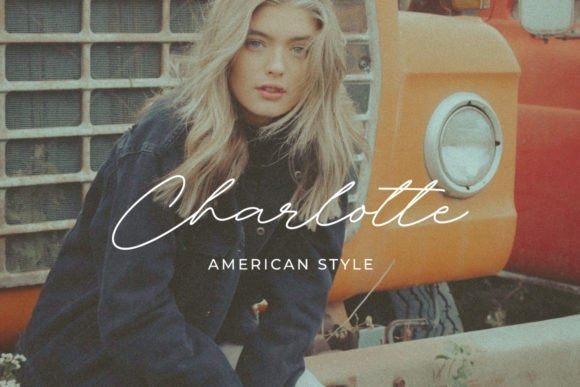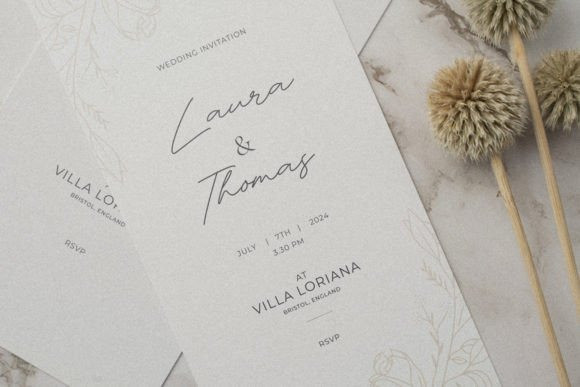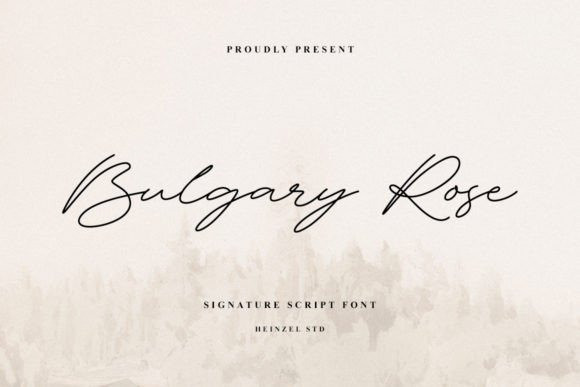
Bulgary Rose Handwriting Font
Bulgary Rose Handwriting Font is a signature script font, described by an elegant touch, perfect for your favorite projects. It looks stunning on wedding invitations, thank you cards, quotes, greeting cards, logos, business cards, social media, magazines, and marketing materials.